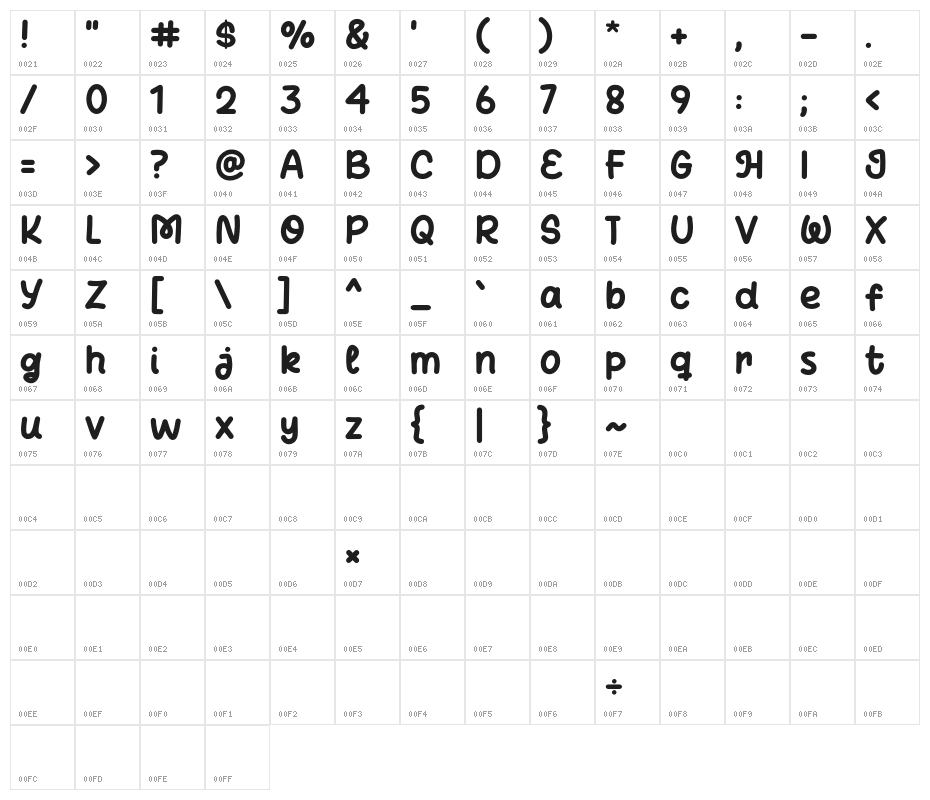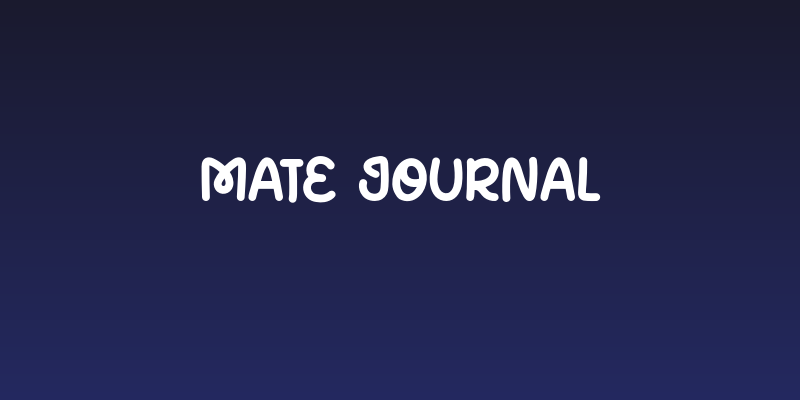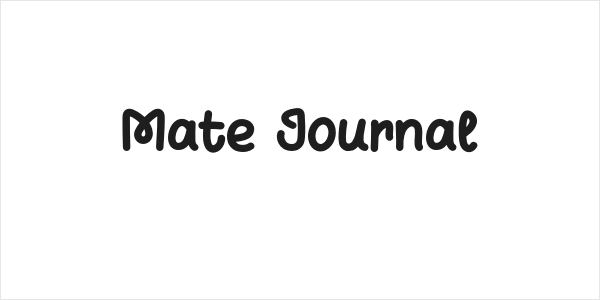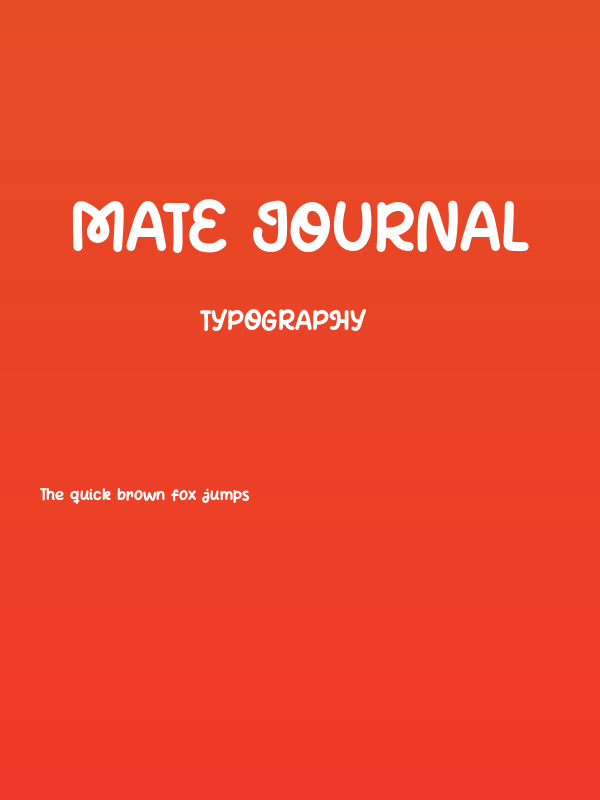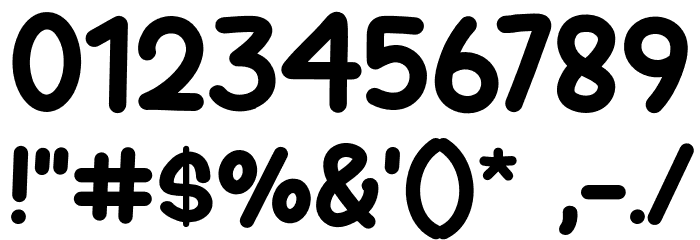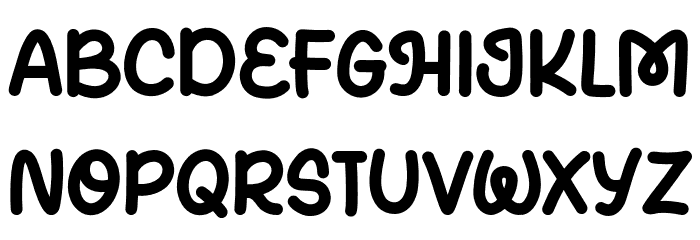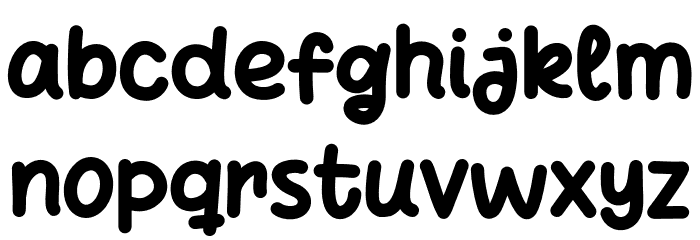
Mate Journal Font
Mate Journal Description
This font features a playful and rounded style, characterized by its bold and smooth curves. The letters are uniformly thick, giving it a consistent and friendly appearance. The uppercase and lowercase letters maintain a cohesive look, with rounded edges and a slightly informal touch. Numbers and special characters follow the same design principles, ensuring a harmonious overall look. The font's approachable and whimsical nature makes it suitable for projects that require a touch of fun and creativity.
| Proposed Projects | Ideal for children's books, playful branding, casual invitations, and creative posters. |